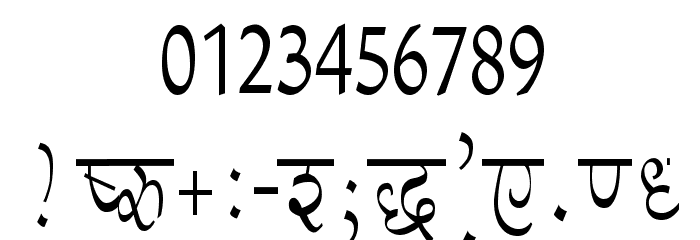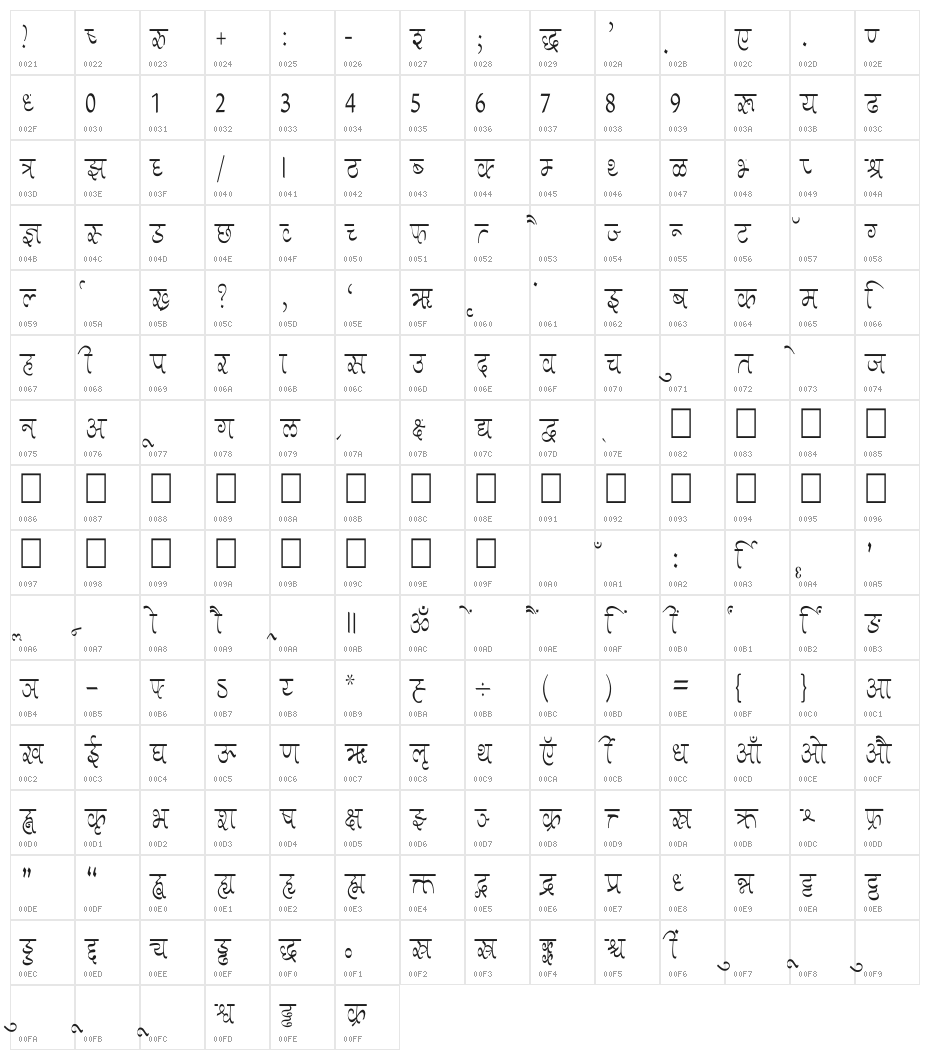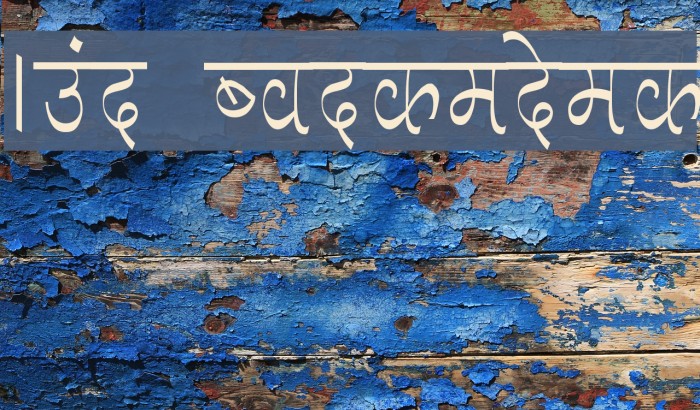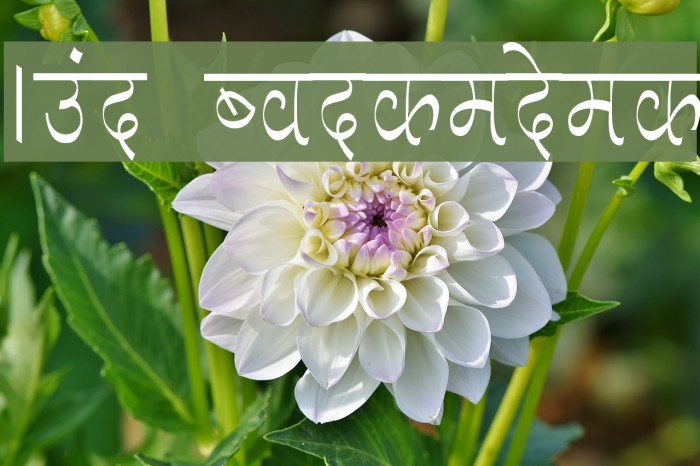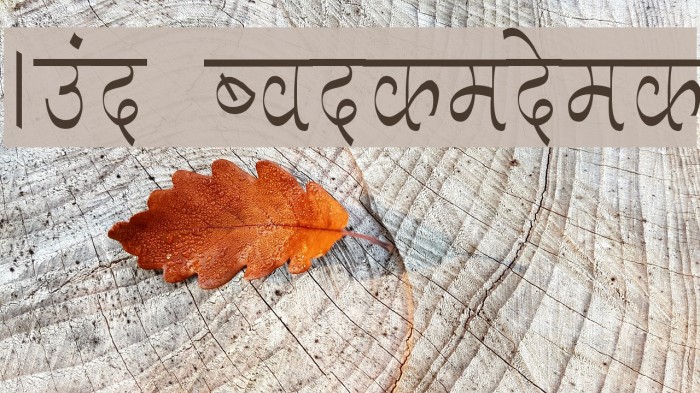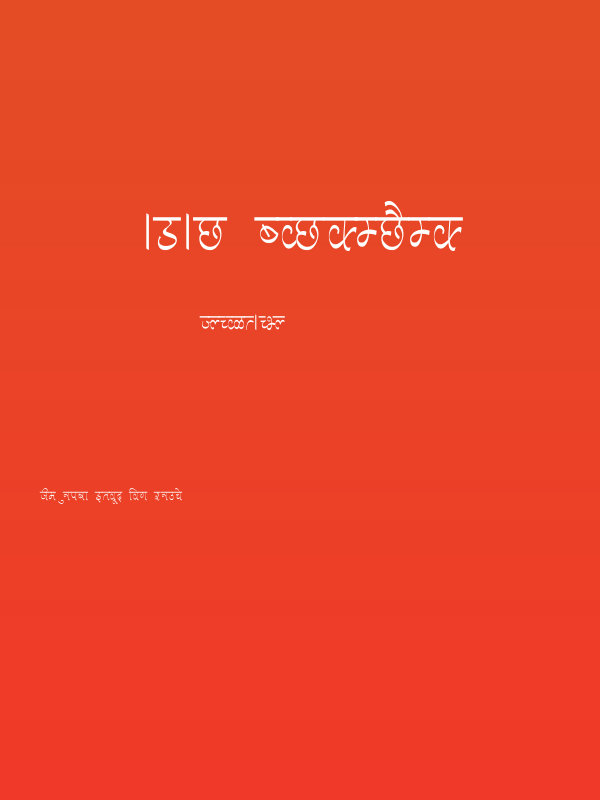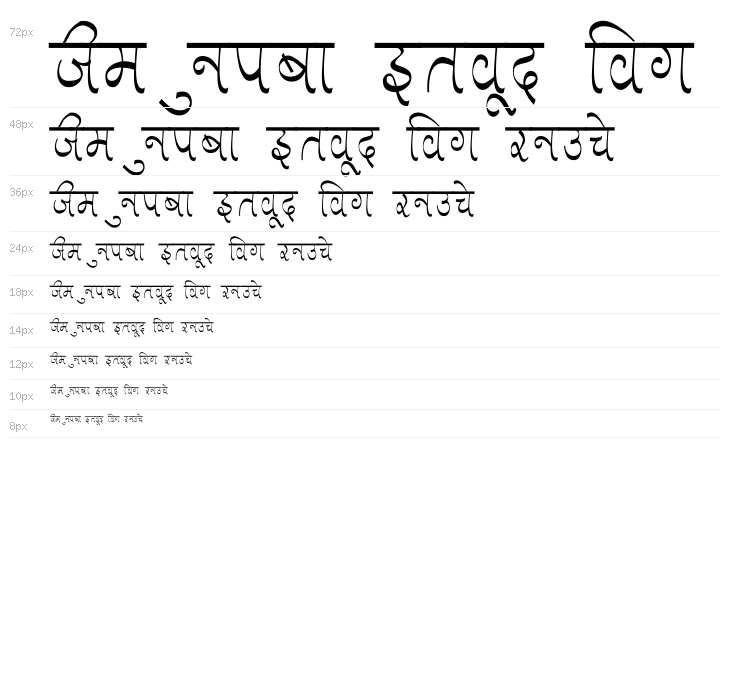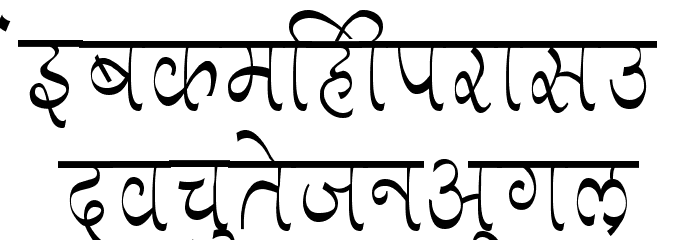
Aman Condensed Font
Aman Condensed Description
This font features a traditional Devanagari script style, characterized by its elegant and flowing curves. The characters are intricately designed with a focus on readability and aesthetic appeal. The strokes are moderately thick, providing a balanced contrast that enhances legibility. The numerals are clear and distinct, complementing the overall script style. Special characters are included, maintaining the font's cohesive look. The design is suitable for both formal and informal contexts, offering versatility in its application.
| Use Case | Headlines, Artistic projects, Cultural publications |
| Proposed Projects | Ideal for cultural publications, educational materials, and artistic projects requiring a traditional touch. |